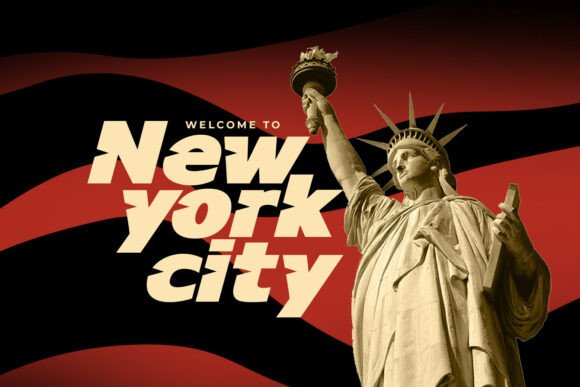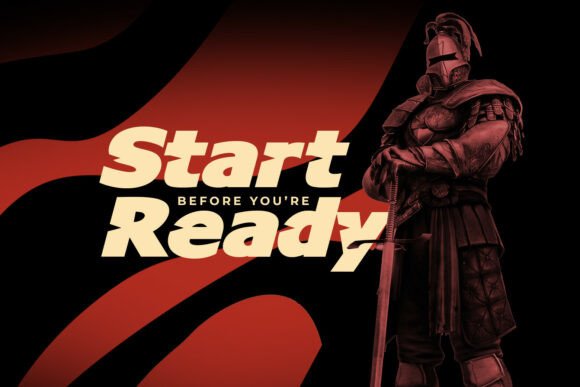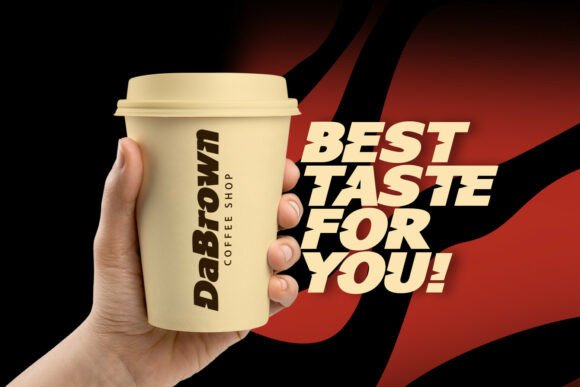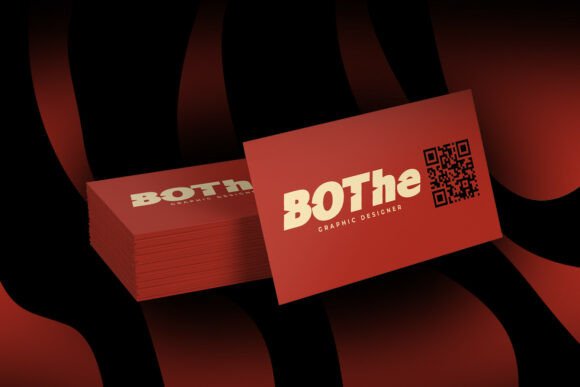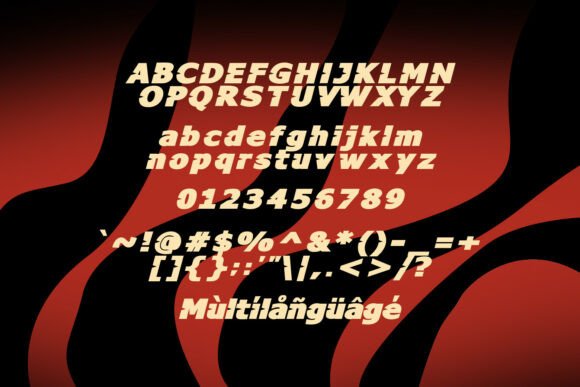
Introducing Belix Font: The Modern and Unique Bold Sans Serif Font
Are you tired of using the same old fonts for your designs? Look no further! Belix Font is here to revolutionize your creative projects with its modern and unique bold sans serif style. This font is perfect for designers and crafters who want to add a touch of quirkiness to their work.
What Makes Belix Font Special?
Belix Font boasts a truncated font style that sets it apart from other fonts. Its bold and sans serif design makes it perfect for creating eye-catching posters, logos, magazines, book covers, banners, and more. The font’s unique style is sure to grab attention and make your designs stand out from the crowd.
Belix Font is incredibly versatile and can be used for a wide range of projects. Whether you’re designing a poster, logo, magazine, book cover, or banner, this font is sure to make your design pop. Its modern and unique style makes it perfect for:
- Posters: Create eye-catching posters that grab attention with Belix Font’s bold and sans serif style.
- Logos: Give your brand a modern and unique look with Belix Font’s truncated font style.
- Magazines: Add a touch of quirkiness to your magazine designs with Belix Font’s bold and sans serif style.
- Book Covers: Make your book cover stand out with Belix Font’s unique and modern design.
- Banners: Create eye-catching banners that grab attention with Belix Font’s bold and sans serif style.
Why Choose Belix Font?
So, why choose Belix Font for your design projects? Here are just a few reasons:
- Unique Style: Belix Font boasts a unique and modern style that sets it apart from other fonts.
- Versatility: Belix Font can be used for a wide range of projects, from posters and logos to magazines and book covers.
- Ease of Use: Belix Font is easy to use and can be easily matched with a wide range of projects.
- High-Quality Design: Belix Font is designed with high-quality and attention to detail, ensuring that your designs look professional and polished.
Tips for Using Belix Font
Here are a few tips for using Belix Font in your design projects:
- Experiment with Different Sizes: Belix Font looks great in a variety of sizes, so experiment with different sizes to find the one that works best for your project.
- Pair with Other Fonts: Belix Font pairs well with other fonts, so try pairing it with a complementary font to add depth and interest to your design.
- Use for Headings and Titles: Belix Font is perfect for headings and titles, so use it to add a touch of quirkiness to your design.
In conclusion, Belix Font is a modern and unique bold sans serif font that is perfect for designers and crafters who want to add a touch of quirkiness to their work. Its truncated font style and bold design make it perfect for a wide range of projects, from posters and logos to magazines and book covers. With its ease of use, high-quality design, and versatility, Belix Font is a great addition to any design project.